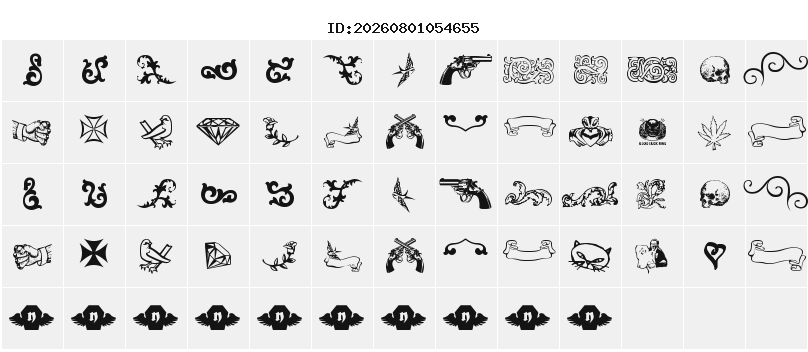
LT Sweet Nothings Preview
• Font Name: LT Sweet Nothings
• Designer: Lauren Thompson
• Description: Dings designed by Nymphont from Nymphont's own (Lauren Thompson's) artwork and drawings. Inspiration for a few "vintage" looking dings, such as the fist with brass knuckles and the good luck ring,inspired by a Johnson Smith & Co advertisement in the January 1933 issue of, "Everyday Science and Mechanics." The ad is a true gem, with many more unusual woodcut drawings of the period. I was so taken by them I was certain others might be as well; hence, I recreated them here in this dingbat font. Depicted in the character mapped as the latin lowercase letter 'x' (proper punctiation dictates that a single letter be underlined, not placed in single quotes as I have done. I ask that you forgive me for this error as I am unable to underline text in this description. Also, please forgive this lengthy note, I don't think breaks a grammatical rule but it is possibly in bad form) are Ginger Rogers and Fred Astair as they appear on a poster for the movie they starred in which was entitled, "Swing Time." The film, also a gewm, I am glad to have caught one afternoon on American Movie Classics, a cable network.